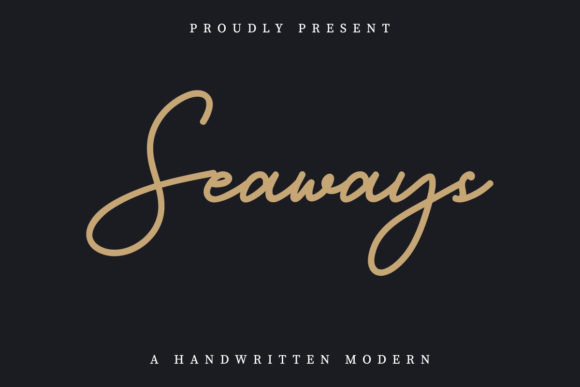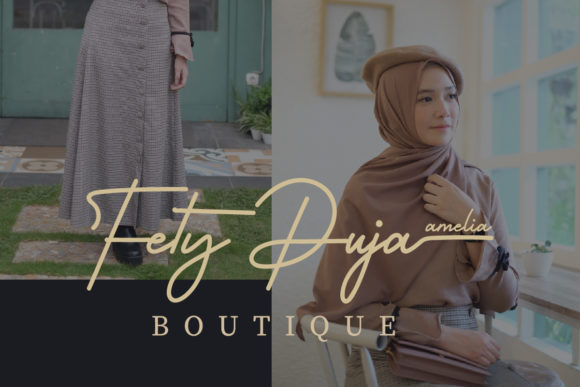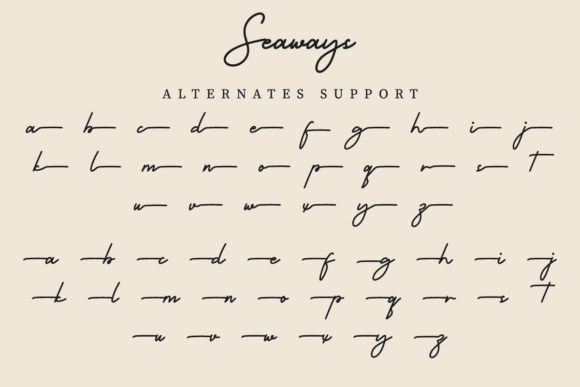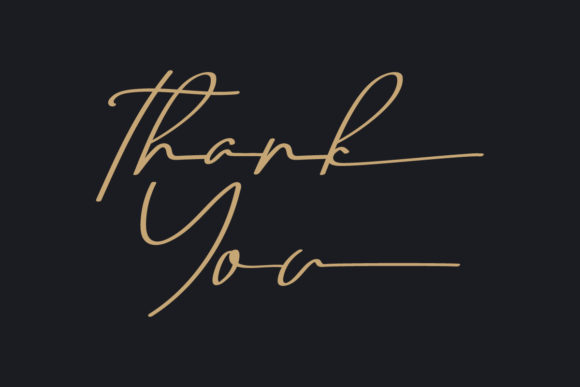
About Seaways Font
Seaways is a sweet and flowing handwritten font. Not too thin and not too thick, balanced and smooth, this font was designed to enhance the beauty of your projects.